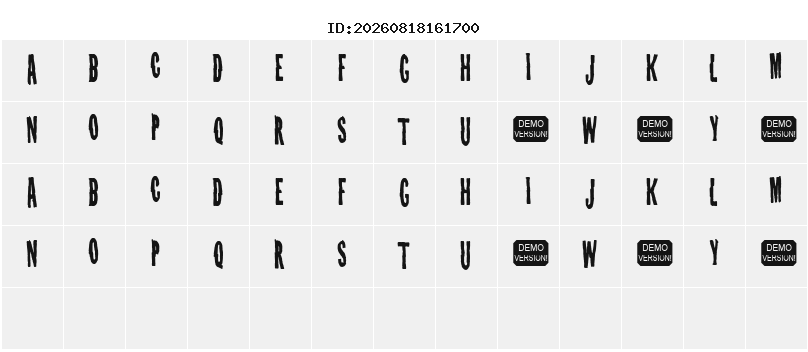
Sleepaway NFI Demo Preview
• Font Name: Sleepaway NFI Demo
• Full Font Name: Sleepaway NFI Demo
• Designer: Thomas W. Otto
• Manufacturer: Norfok Inc. Font Design
About Sleepaway NFI Demo.ttf
Sleepaway NFI Demo.ttf is a modern, elegant sans-serif font designed for ultimate readability and visual harmony. Perfect for branding, headlines, web design, and print materials.